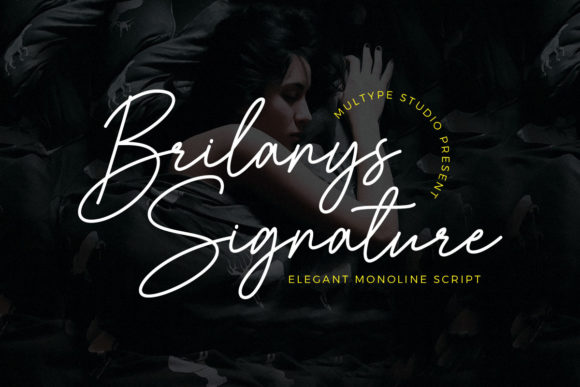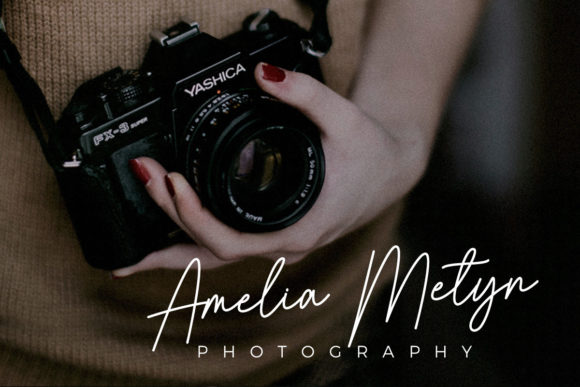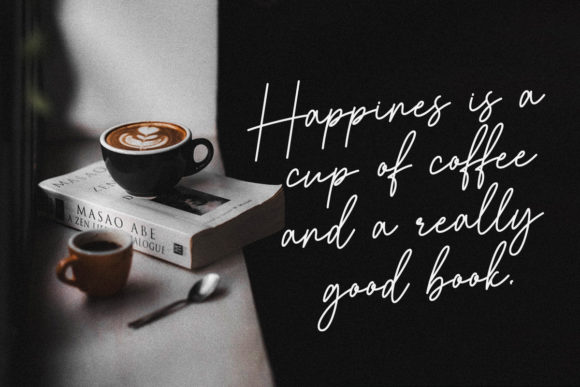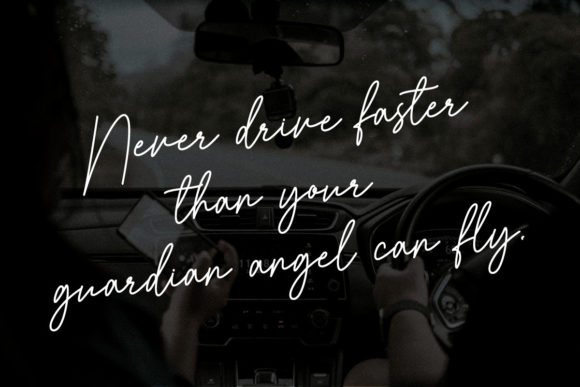
About Brilanys Signature Font
Brilanys Signature is a relaxed, casual and adaptable script font. Whatever the topic, this font will be a wonderful asset to your font library, as it has the potential to enhance any creation.